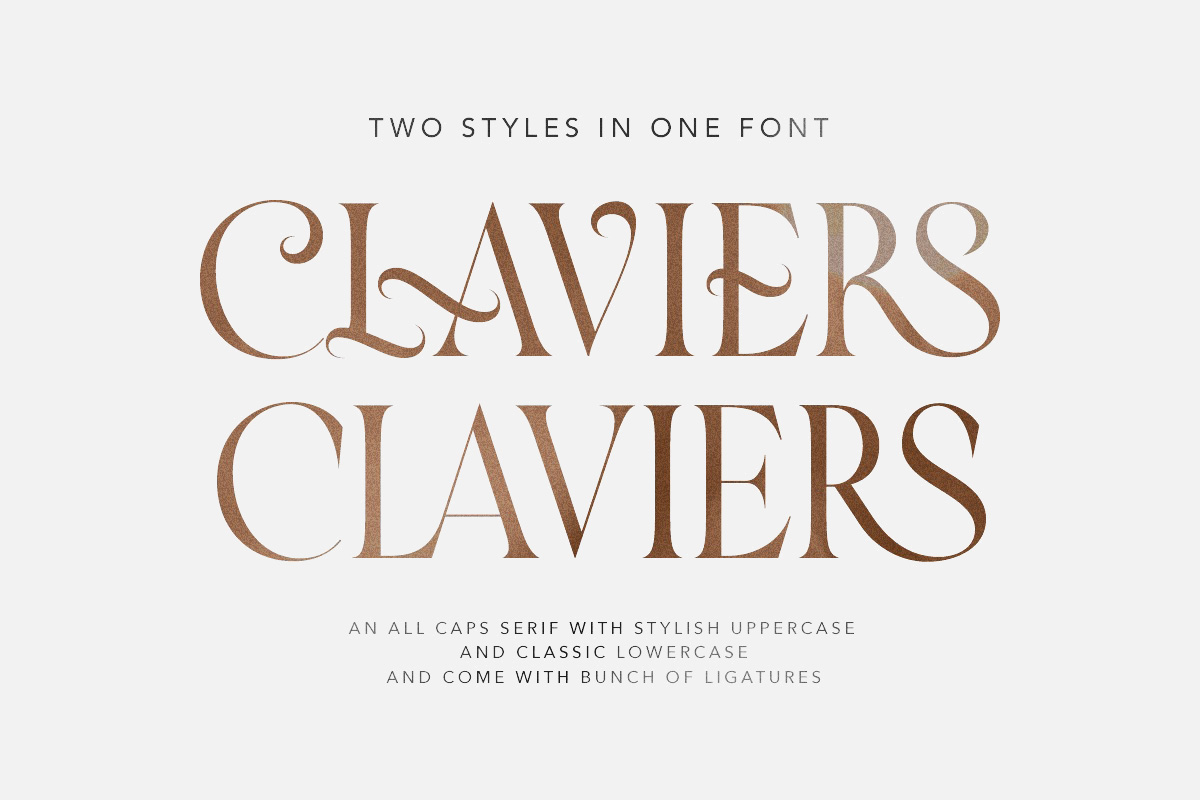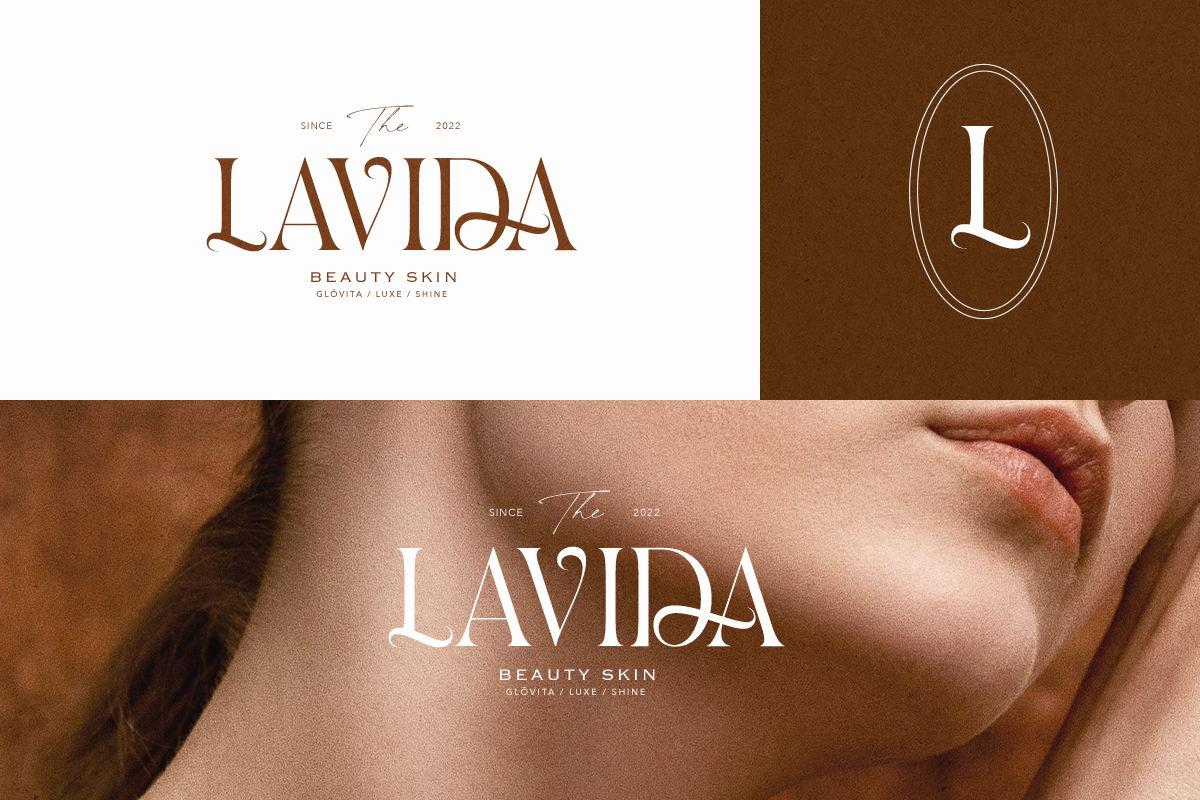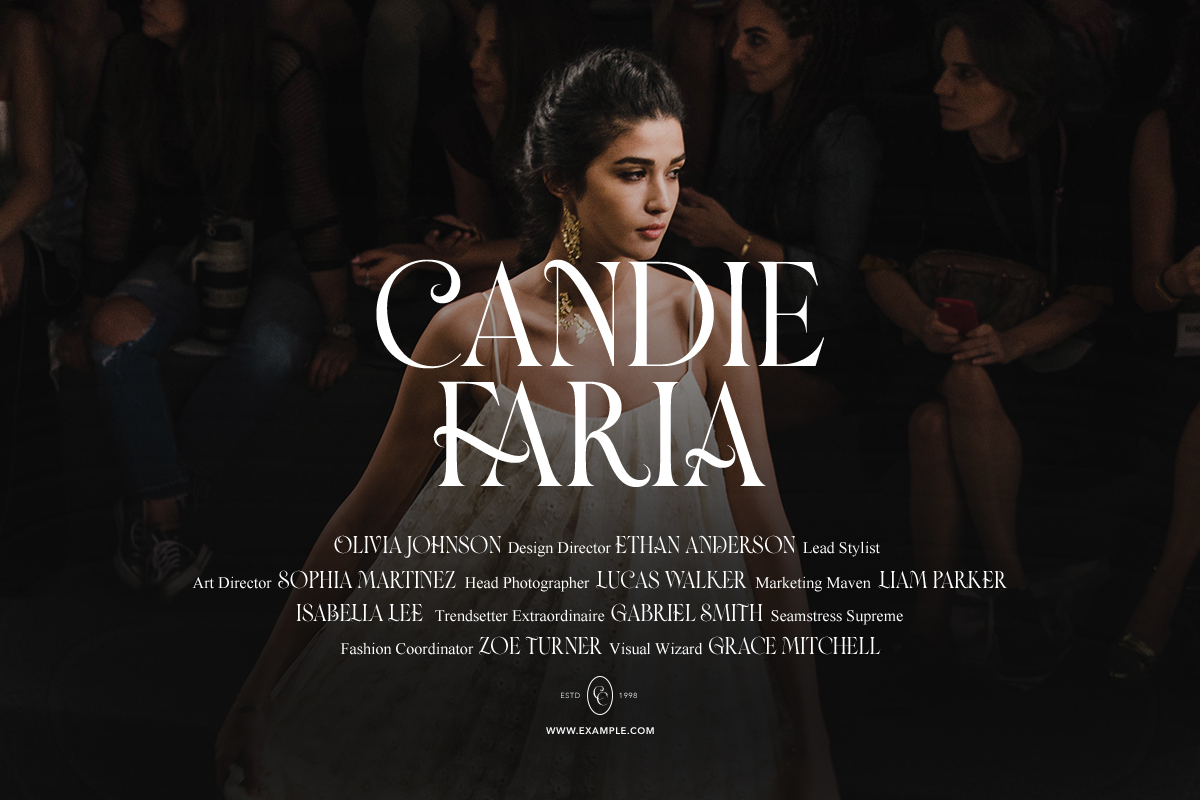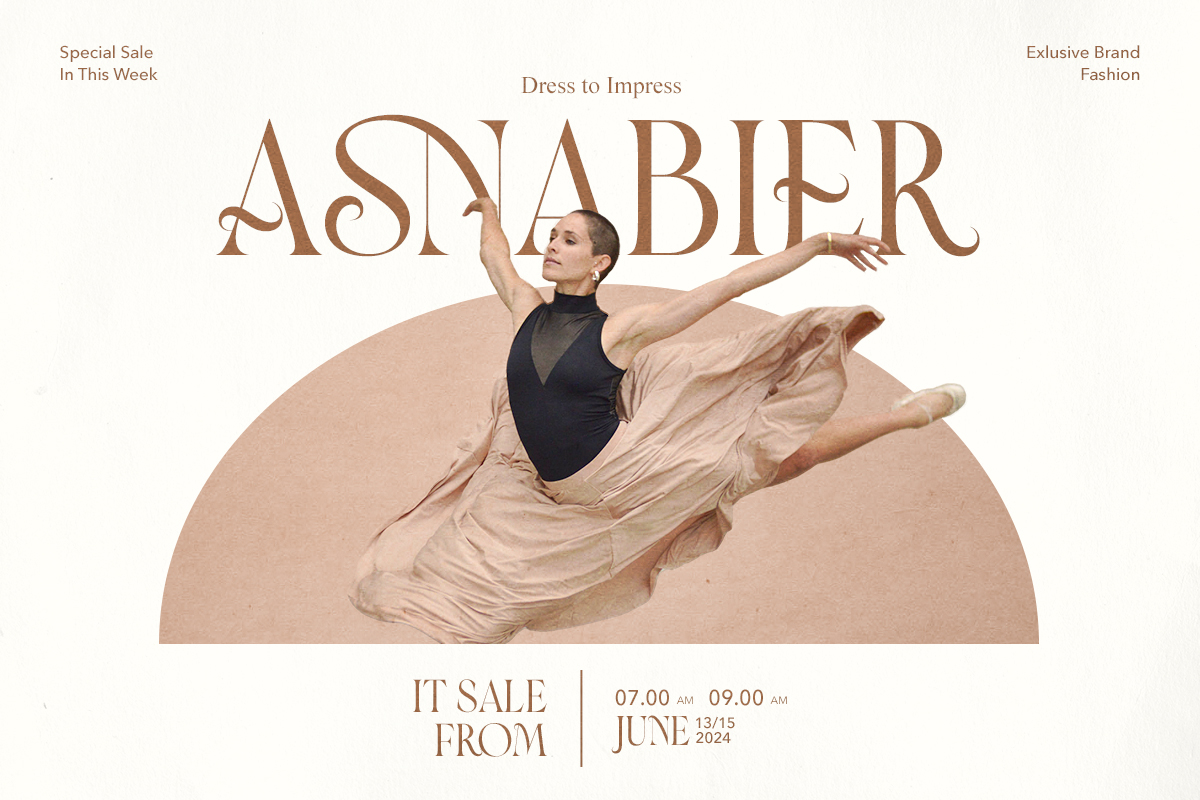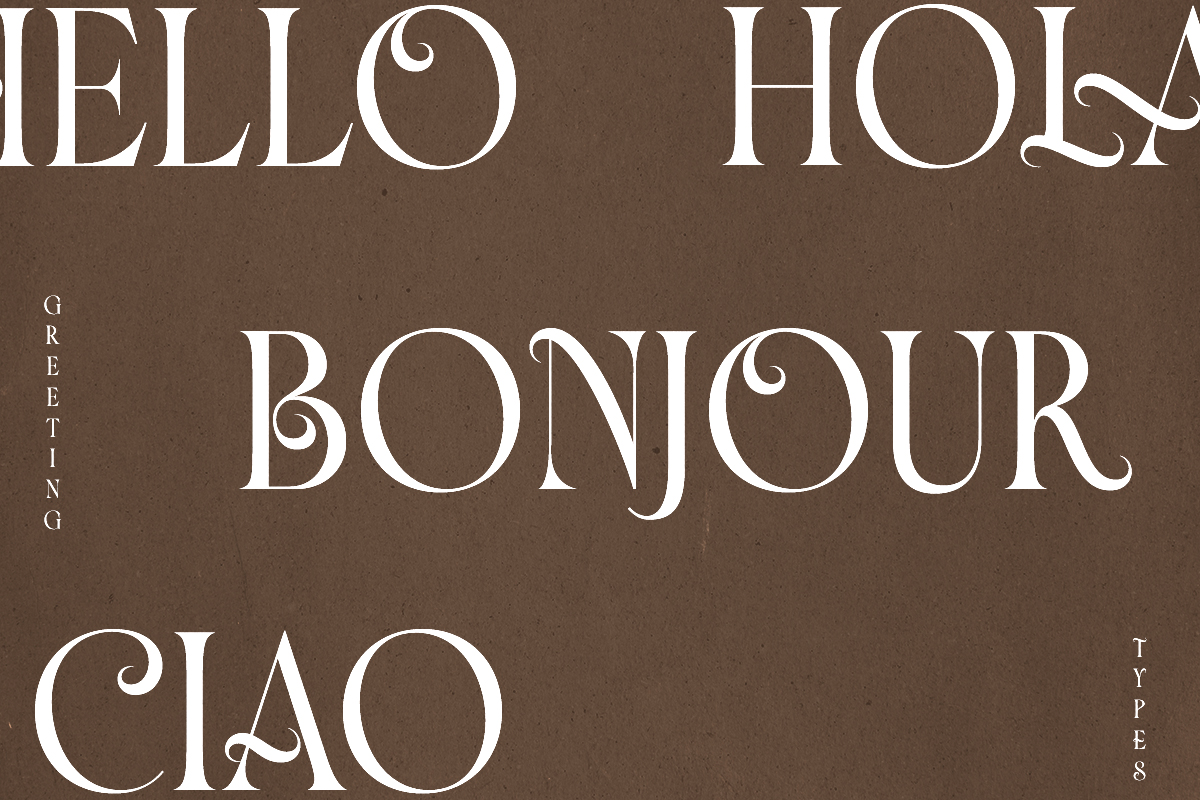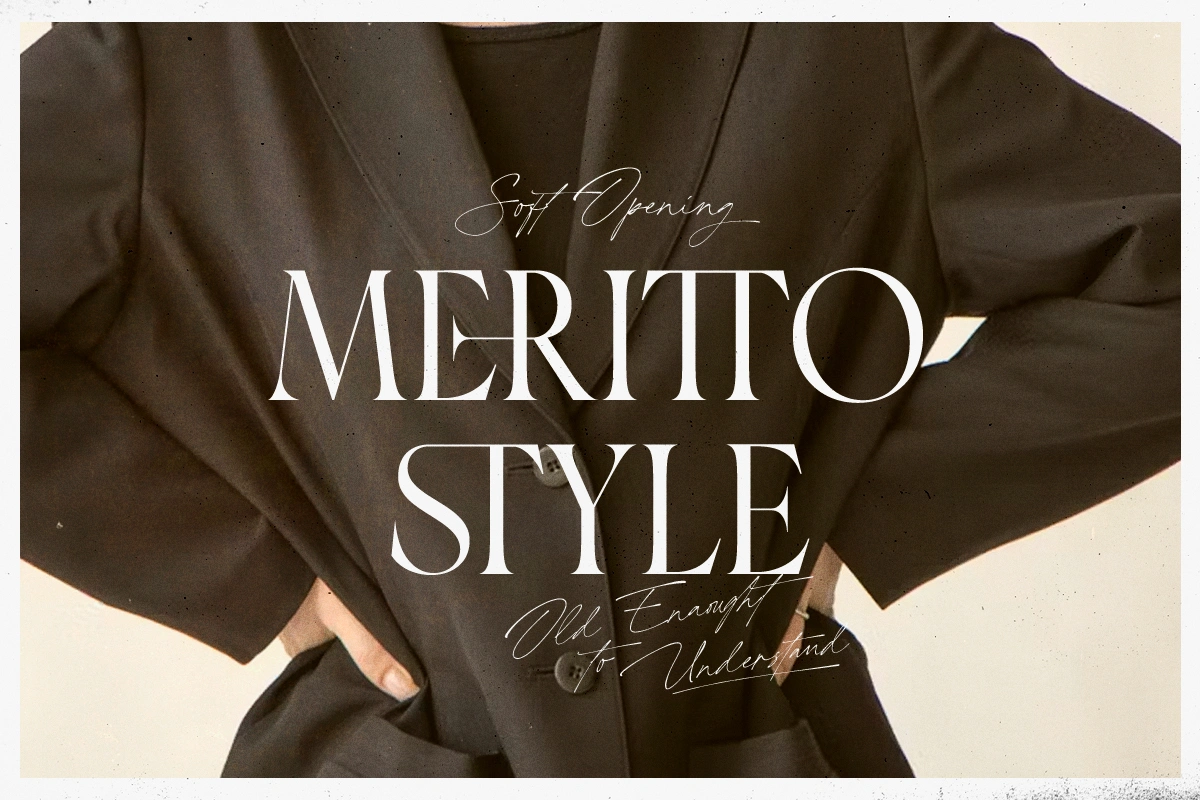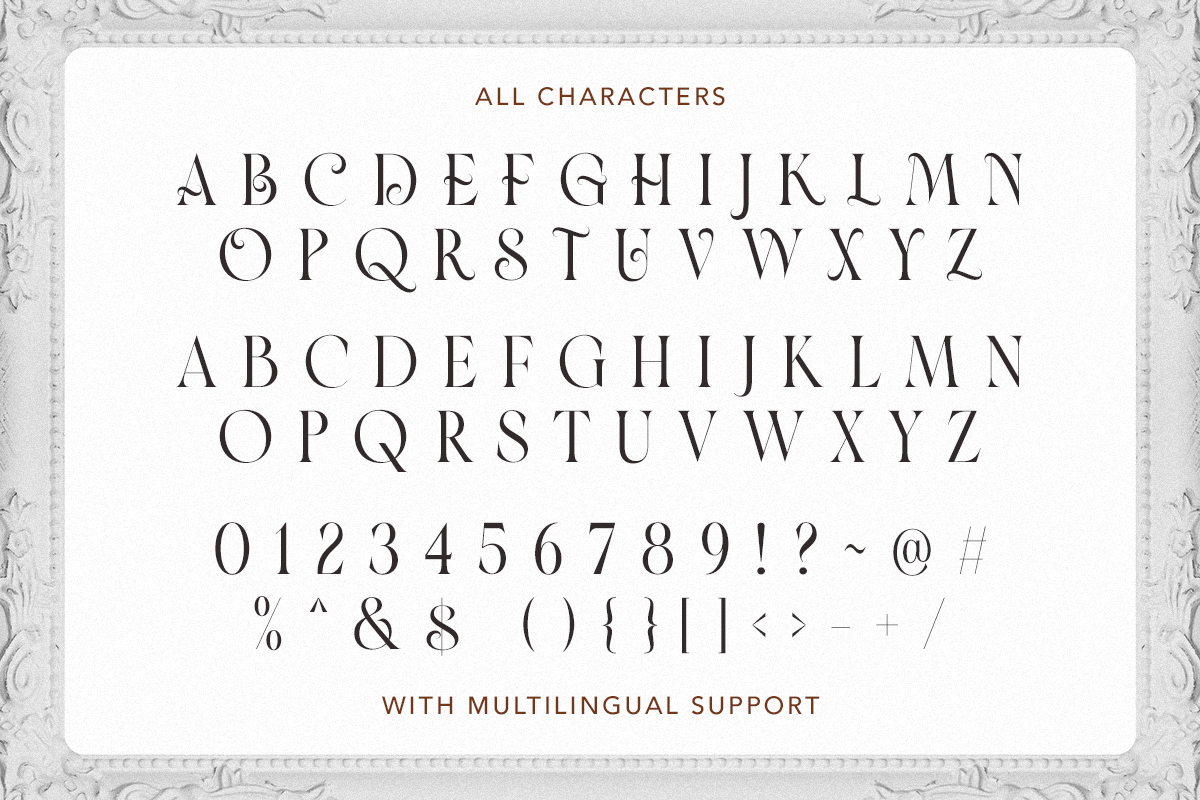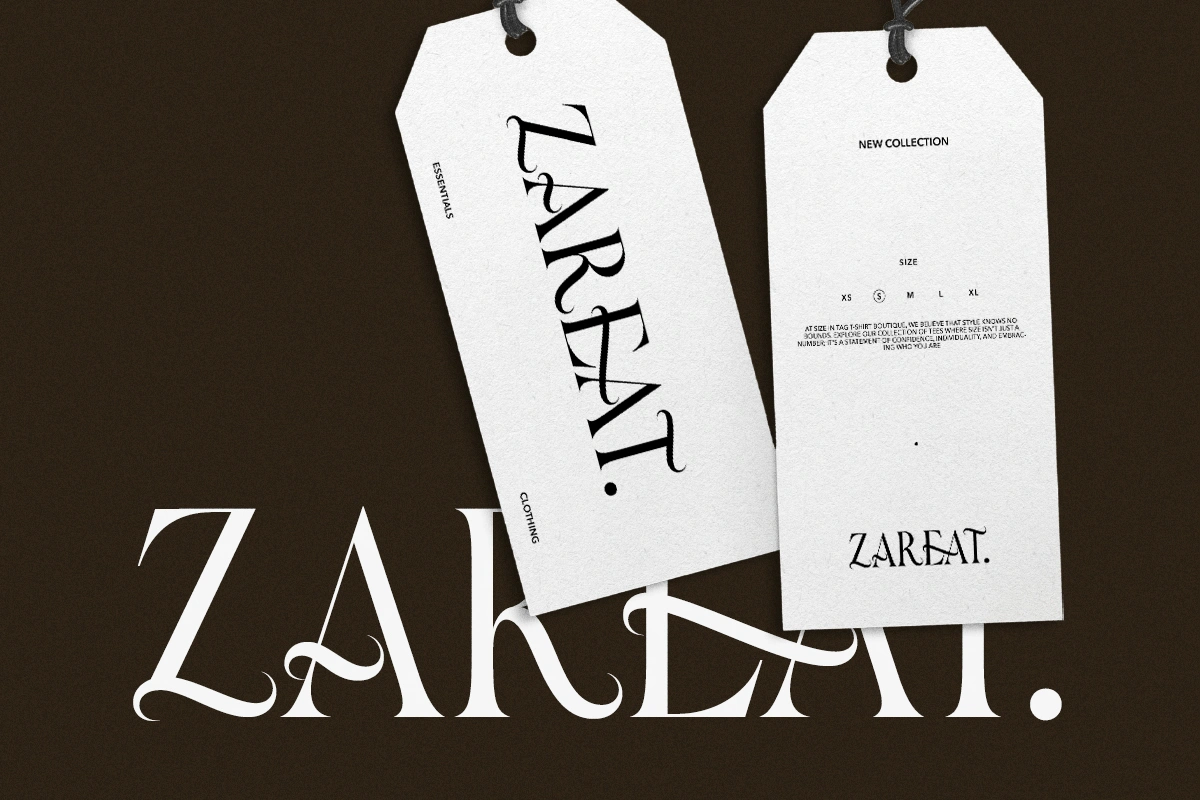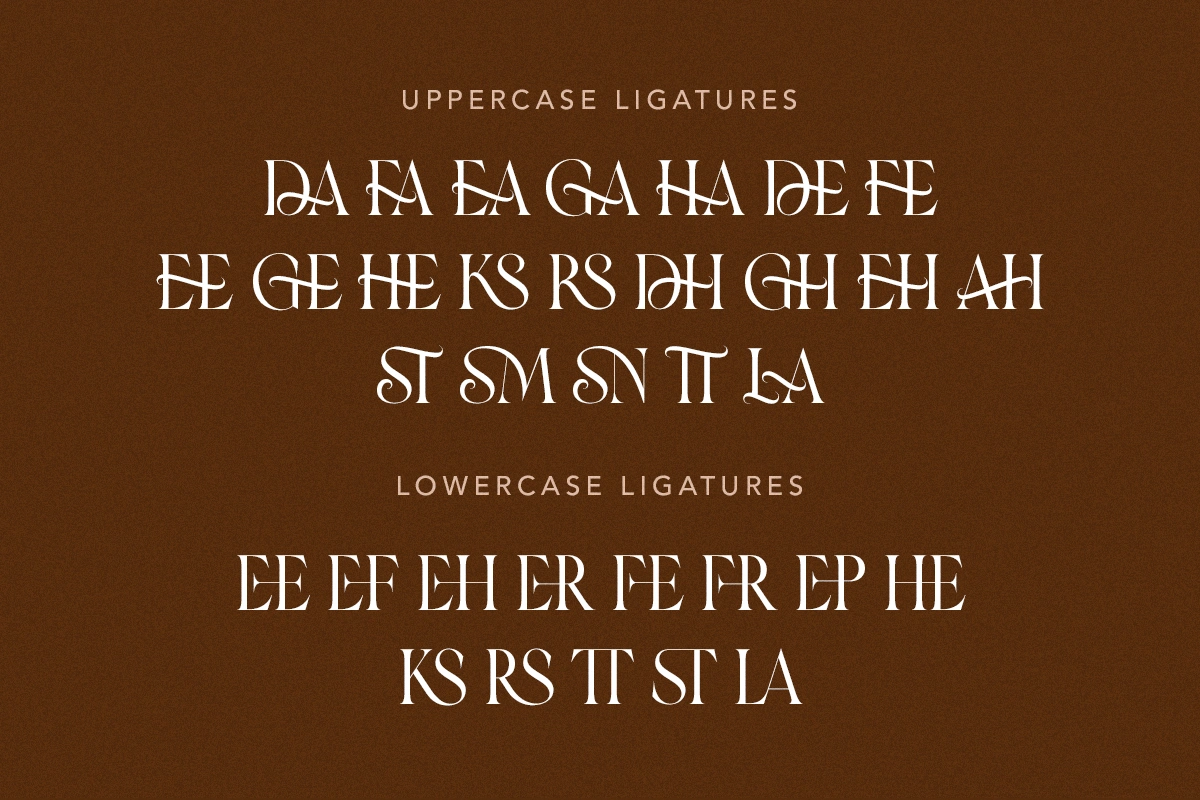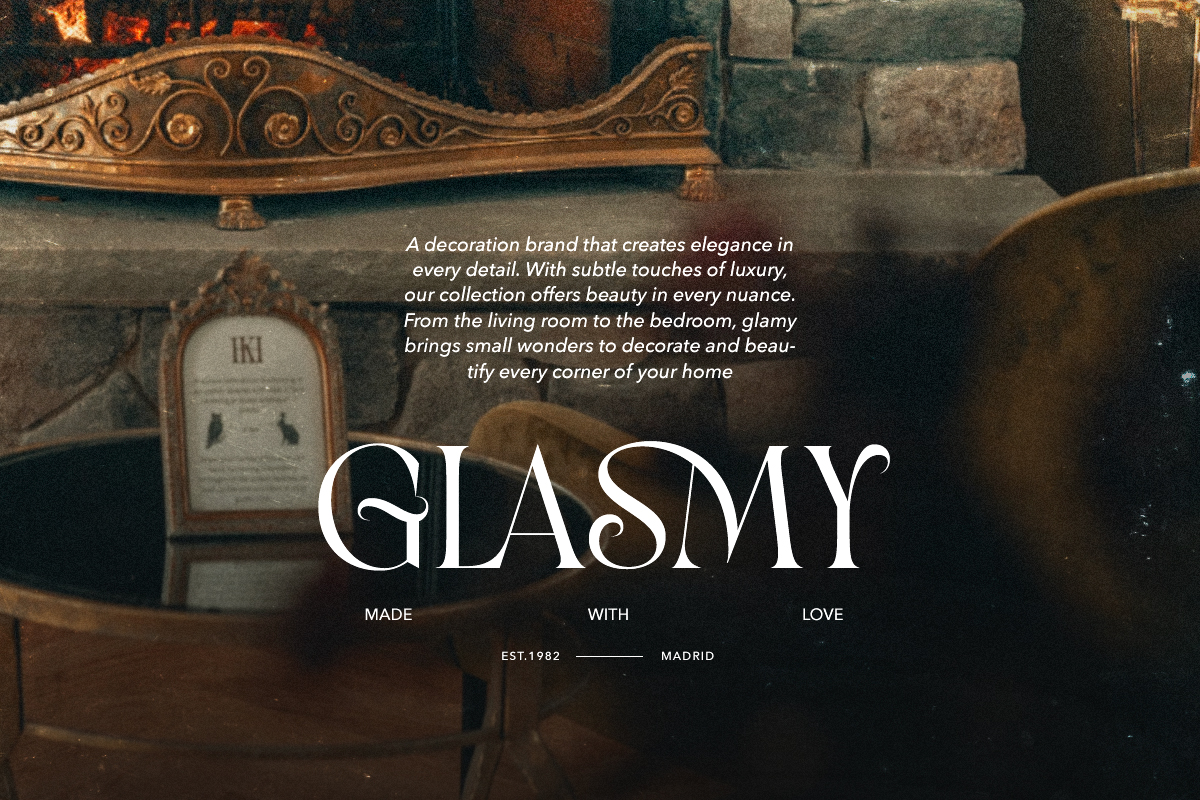
Claviers - Two Styles Serif Font
Claviers
Claviers is an all caps serif with stylish uppercase and classic lowercase that will make your project or branding looks stunning and stand out! You can use this captivating font for many purpose such as magazine, branding, poster, or even for wedding invitation. With Claviers, you can get two styles, simply use the uppercase or lowercase or even both as you needs. This font also support Multi Language.